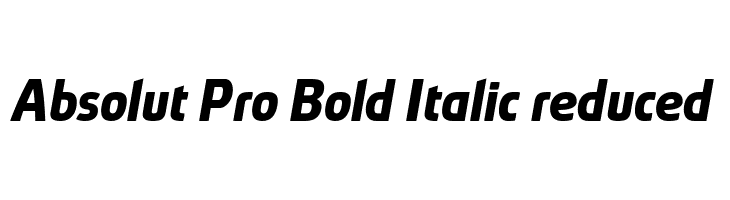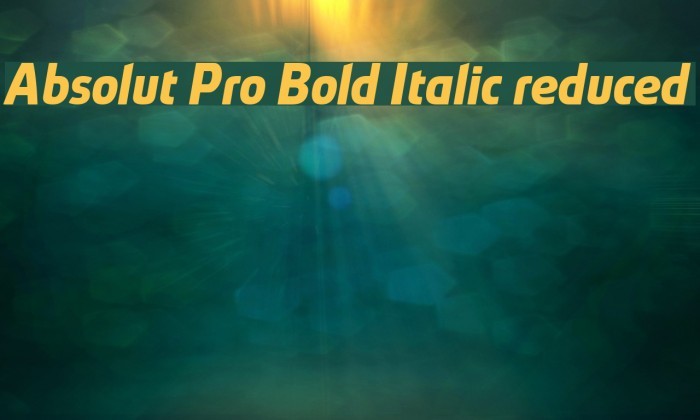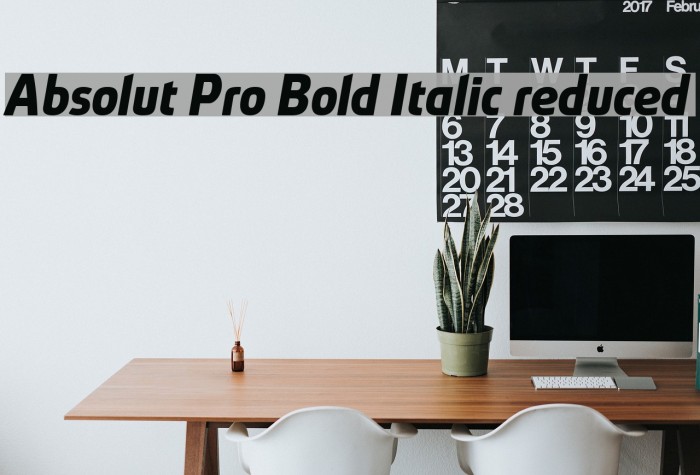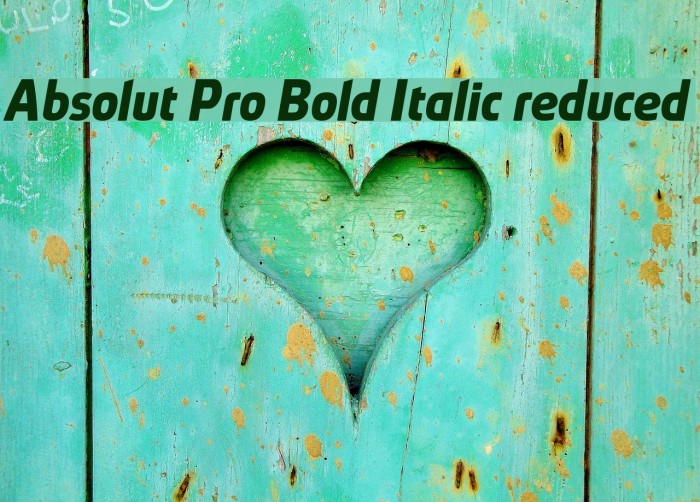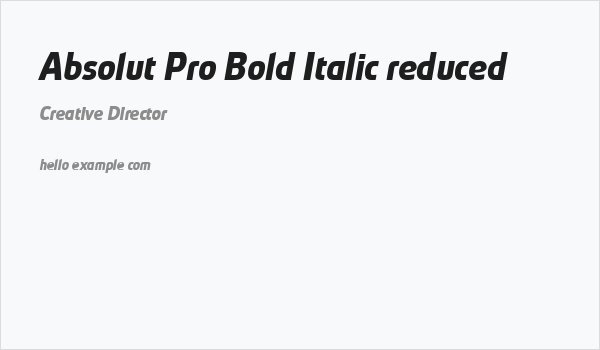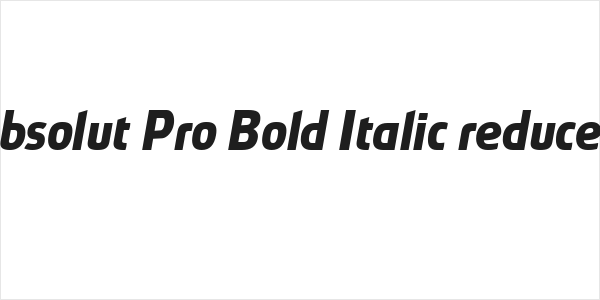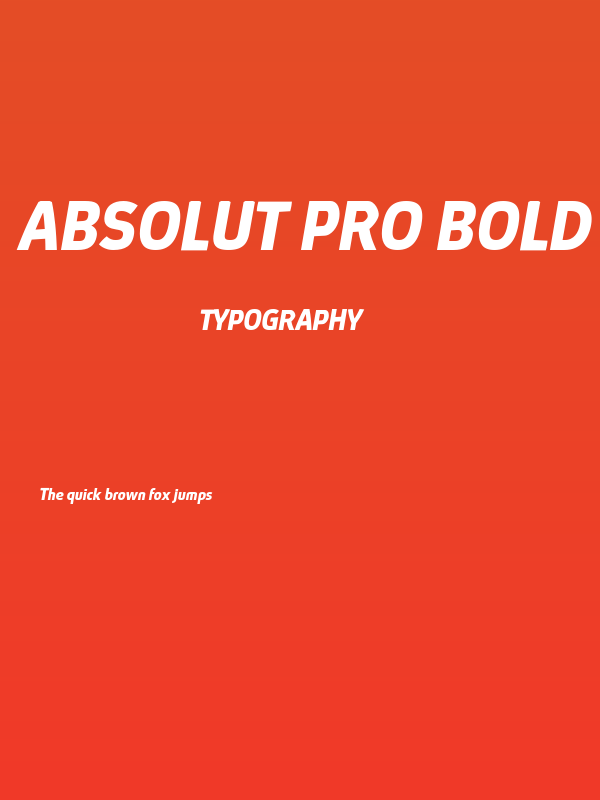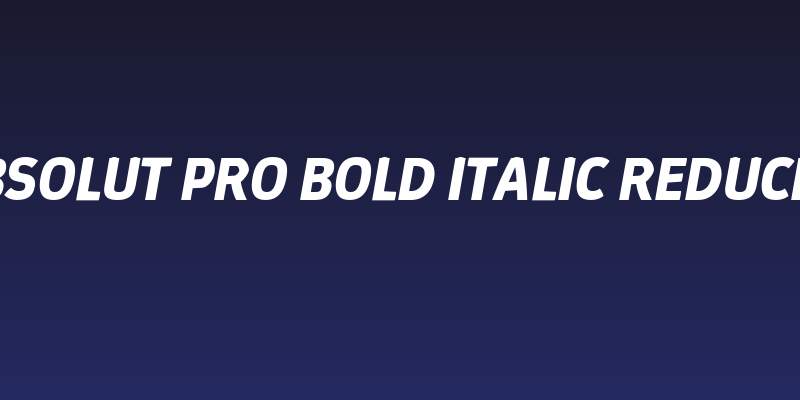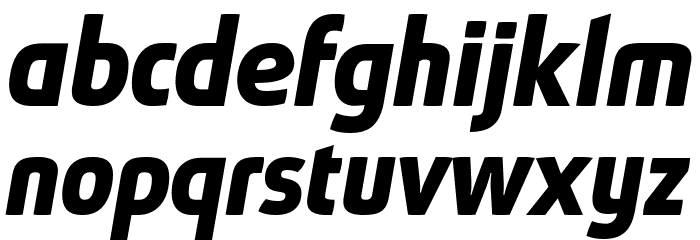
Absolut Pro Bold Italic reduced Font
Absolut Pro Bold Italic reduced Description
This font exhibits a bold and italicized style, characterized by its strong, dynamic presence. The letters are slightly slanted, giving a sense of motion and energy. The strokes are thick and consistent, providing a robust and impactful appearance. The uppercase and lowercase letters maintain a uniform style, with rounded edges that soften the overall look. The font is versatile, suitable for various design applications where a bold statement is needed. Its modern aesthetic makes it ideal for contemporary projects.